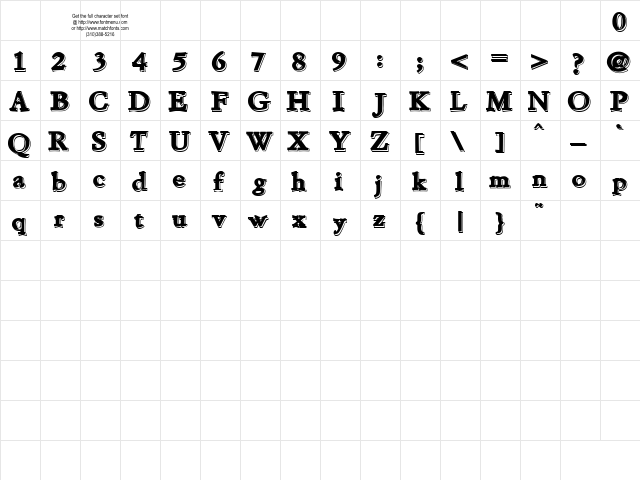
Chapou Relief Tryout Regular
Design Context for Chapou Relief Tryout Typeface
Chapou Relief Tryout offers clean, dependable letterforms without strong stylistic allegiance, making it a practical choice for designers who need flexibility.